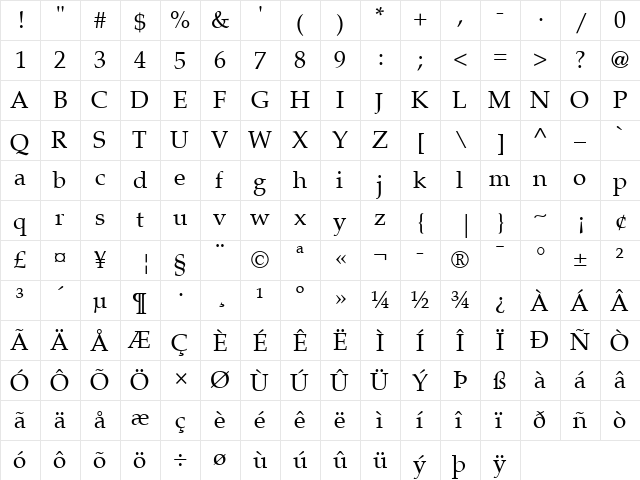
Palatino LT Regular
Design Context for Palatino LT Typeface
Palatino LT takes a measured approach to typography — its balanced proportions and neutral character make it a reliable workhorse for both digital and print work. Its slender proportions lend an understated elegance to any composition.